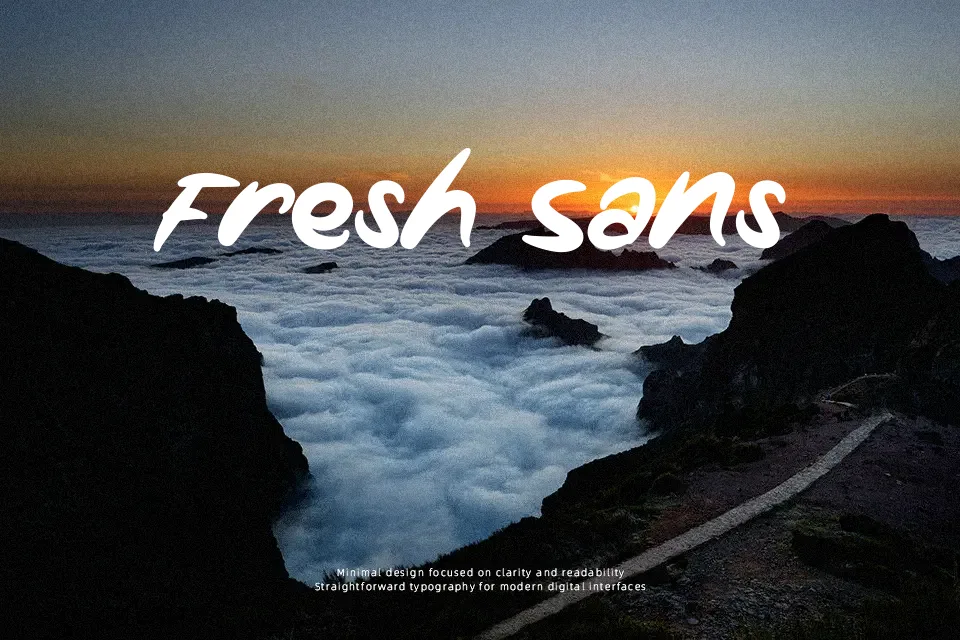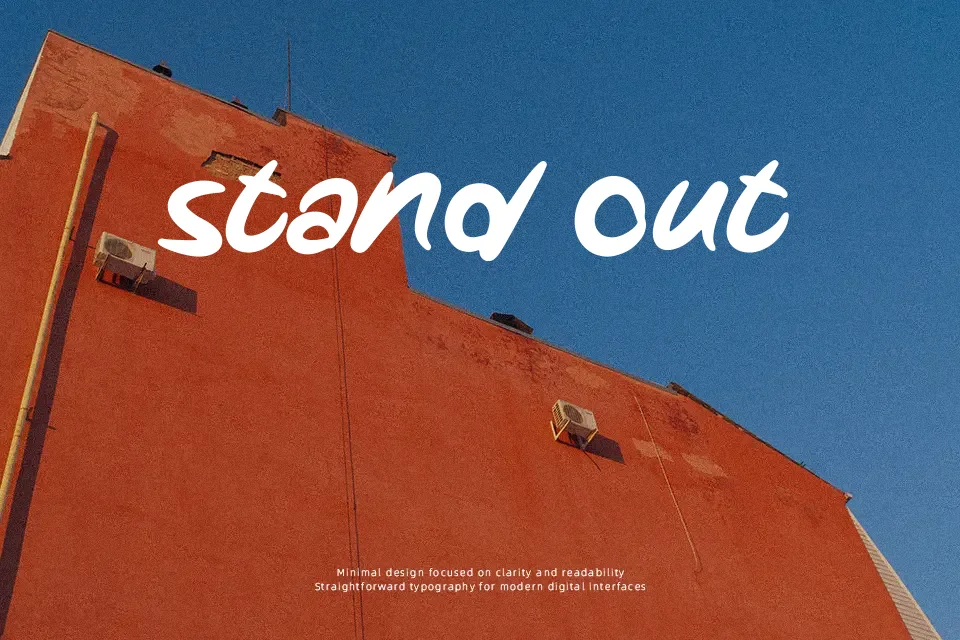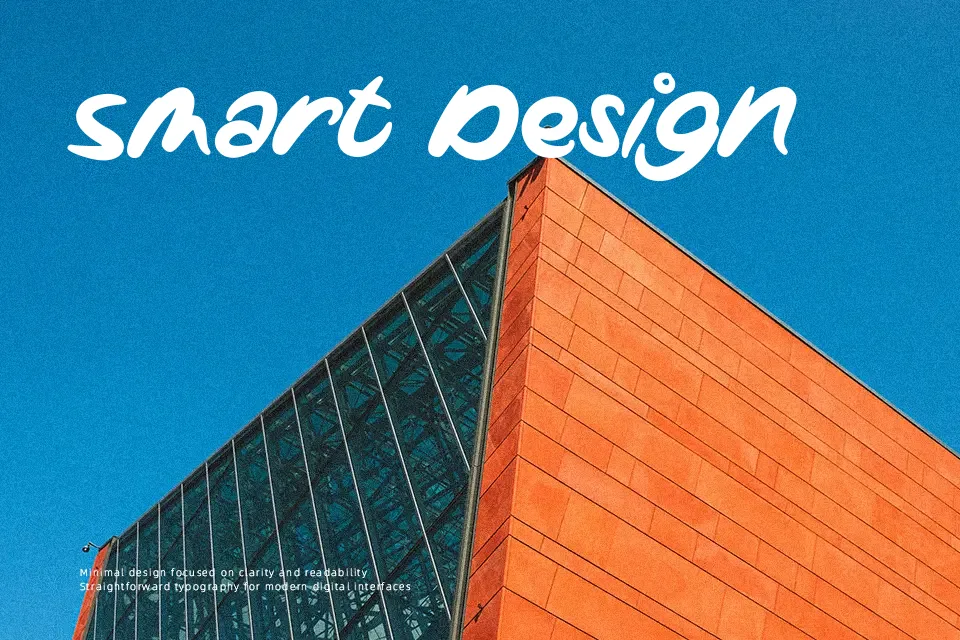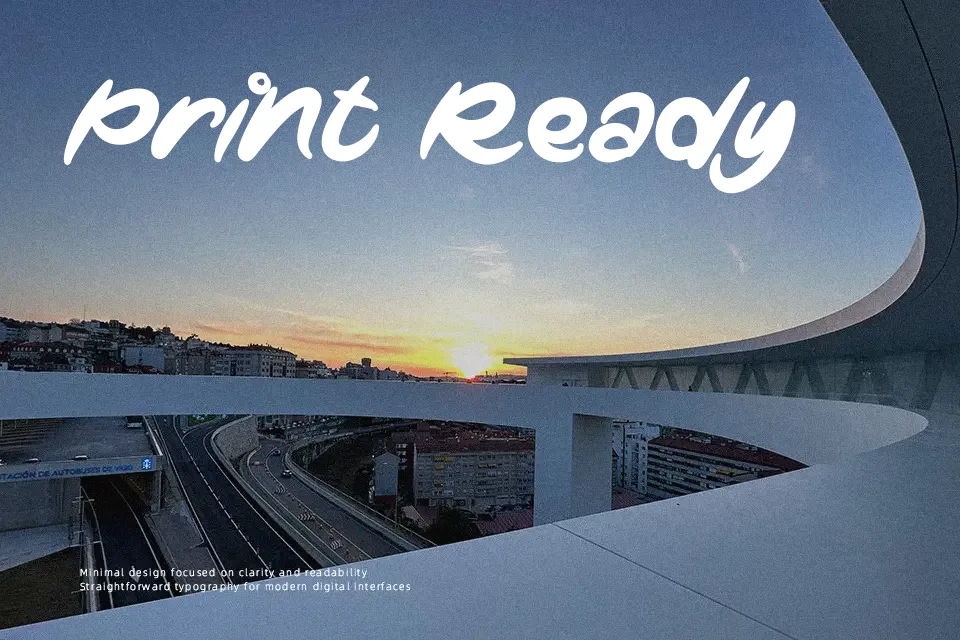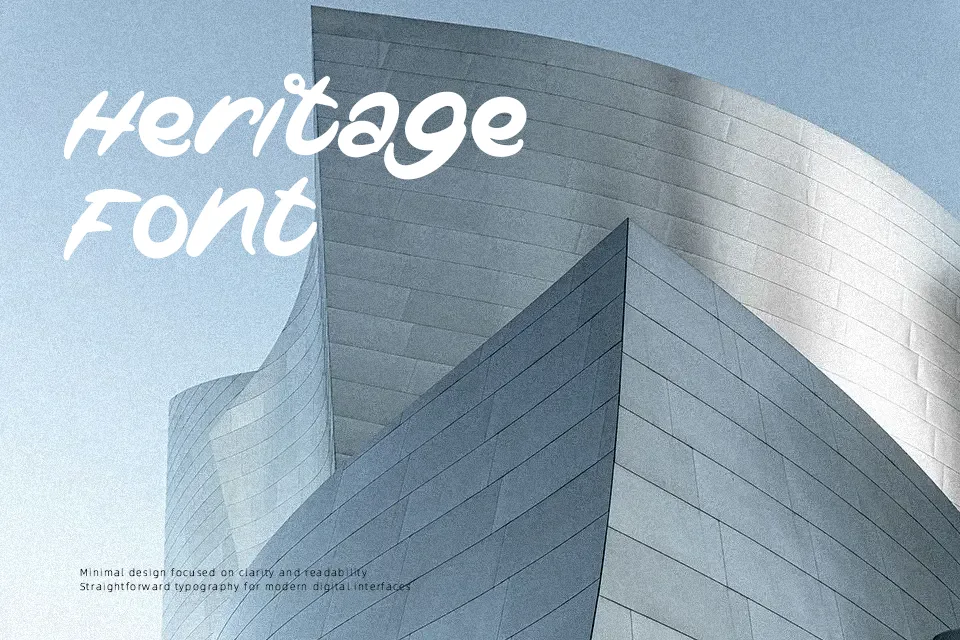
Sweet Puppy Font
Sweet Puppy Font is best treated as a decorative display face for short, attention-getting text rather than extended copy. The visible letterforms use a playful, rounded construction with soft curves and an informal rhythm, creating a friendly appearance in titles and names. Its proportions are more expressive than neutral, so the typeface reads most comfortably at larger sizes where individual shapes have room to register. It can work well on children’s materials, gift labels, and casual social graphics. The decorative character becomes less effective in small captions or dense layouts, where quick scanning matters more than personality.
Best For: children’s party invitations,gift packaging,playful poster headlines,casual social media graphics
Perfect for headline, invitation, and kids, with a creative and decorative style.